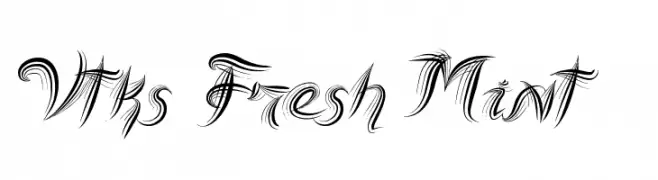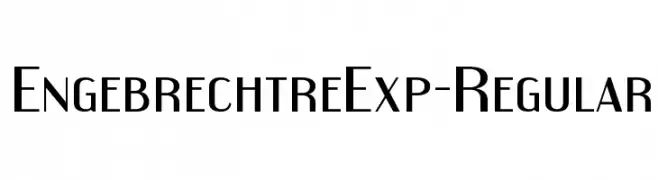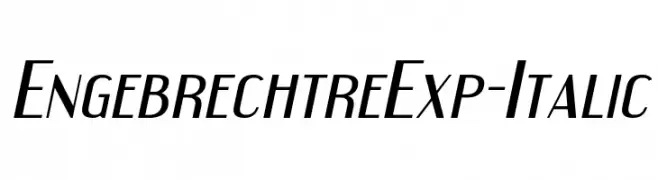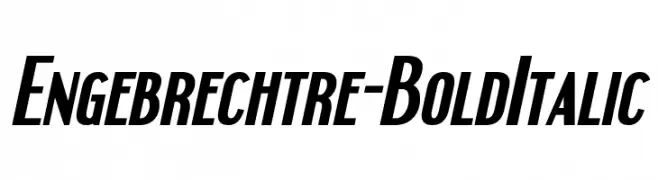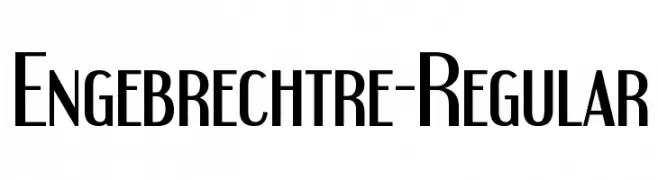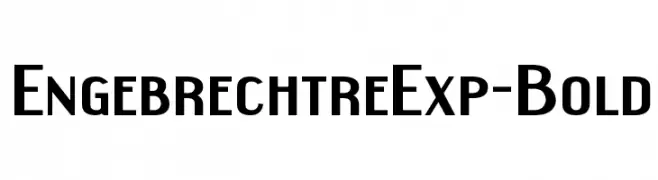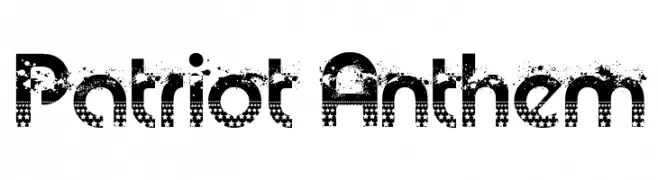
A dynamic and artistic font with swirling, fluid strokes and a calligraphic style.
A modern, geometric font with tall, narrow characters and sharp angles.
A sleek, modern italic font with a dynamic and elegant style.
A bold, italicized font with strong, slanted letterforms and tight spacing.
A modern, condensed typeface with uniform stroke width and a sleek design.
A bold, italicized, and modern font with medium contrast and a sleek appearance.
A bold, expanded font with a modern and geometric style.
A bold, grunge-style font with a checkered pattern and distressed effect.